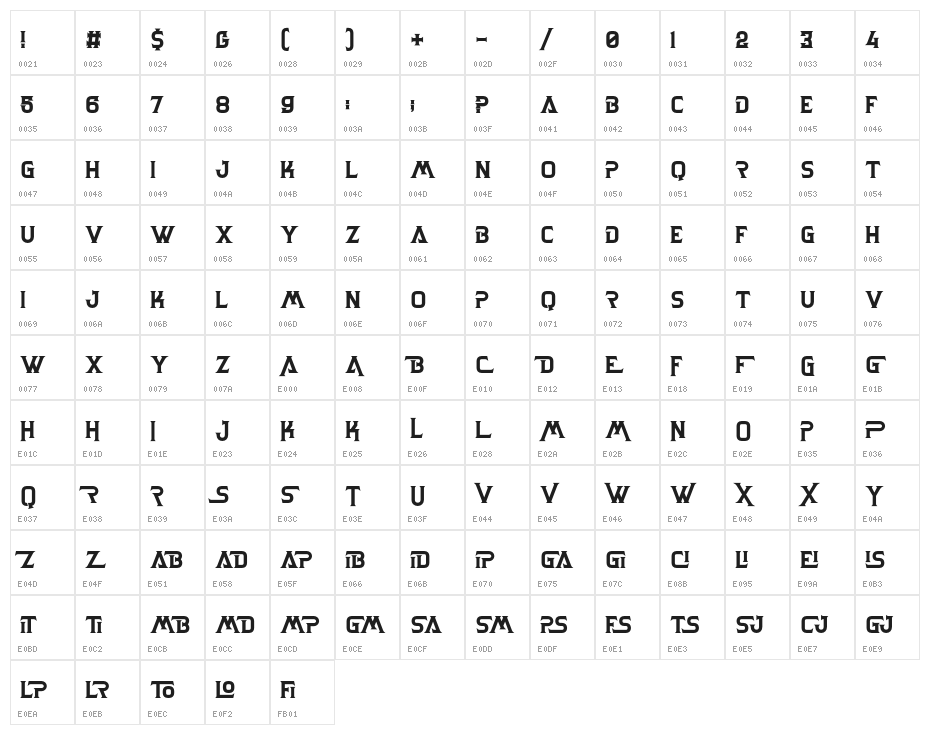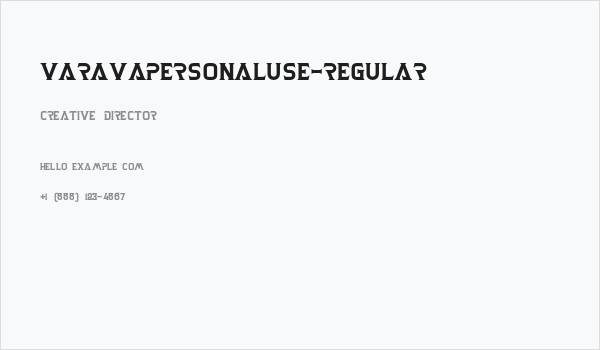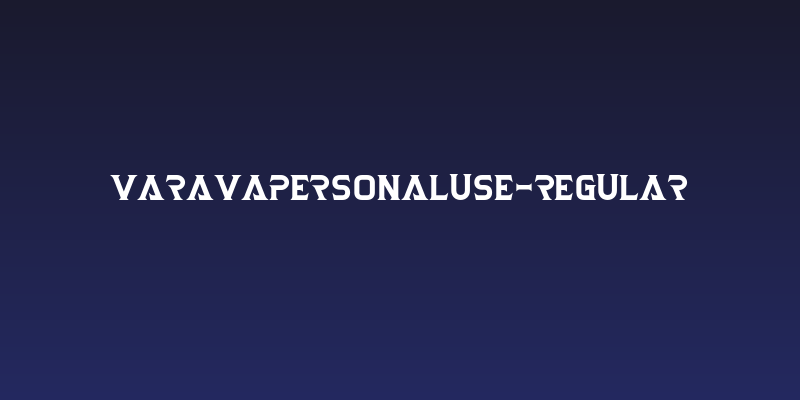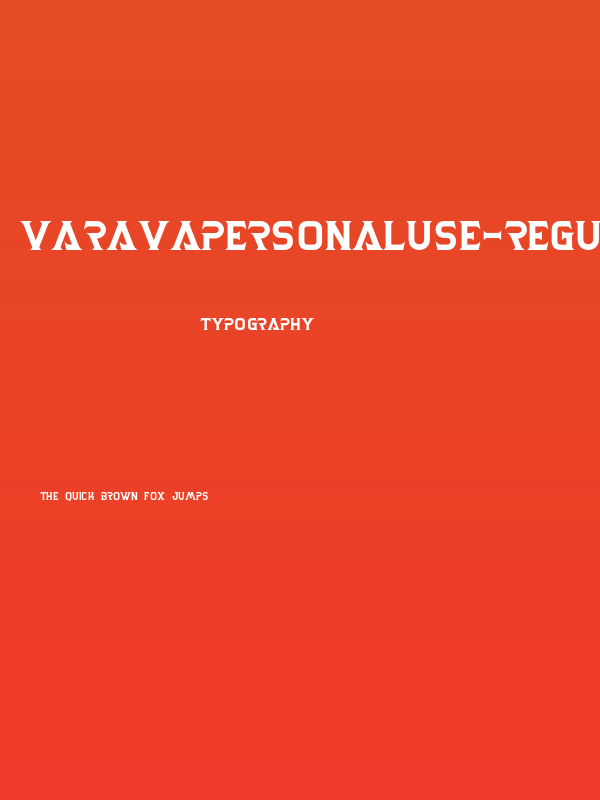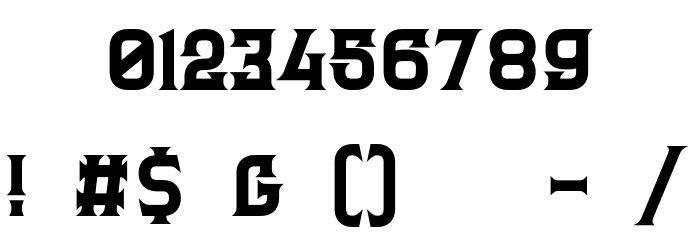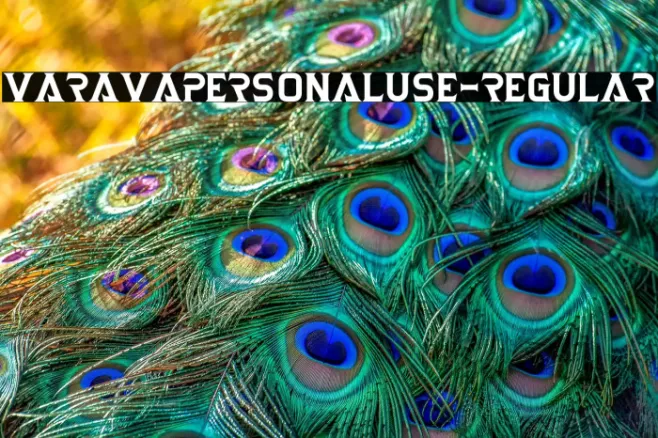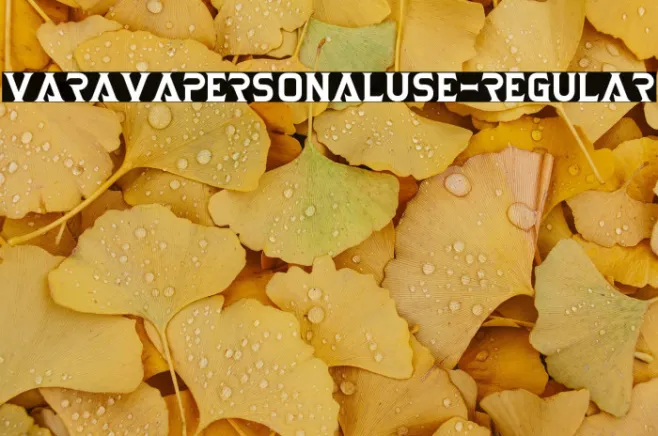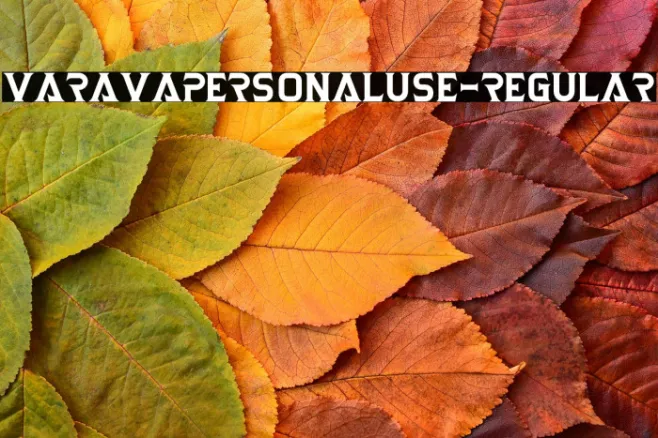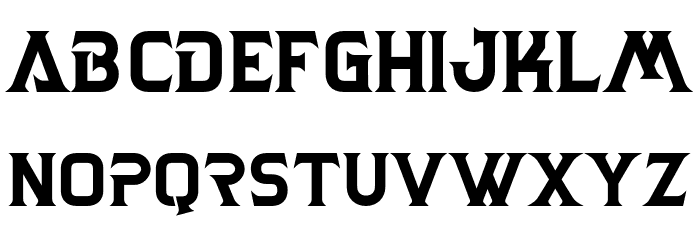
VaravaPersonalUse-Regular Font
VaravaPersonalUse-Regular Description
This font features a bold and angular design, characterized by sharp edges and a geometric structure. The uppercase letters exhibit a strong presence with their thick strokes and unique cut-out details, giving them a modern and edgy appearance. The numerals and special characters maintain this bold style, ensuring consistency across all glyphs. The font's distinct style makes it stand out, suitable for projects that require a strong visual impact.
| Proposed Projects | Ideal for branding, posters, headlines, and any design requiring a strong, modern aesthetic. |